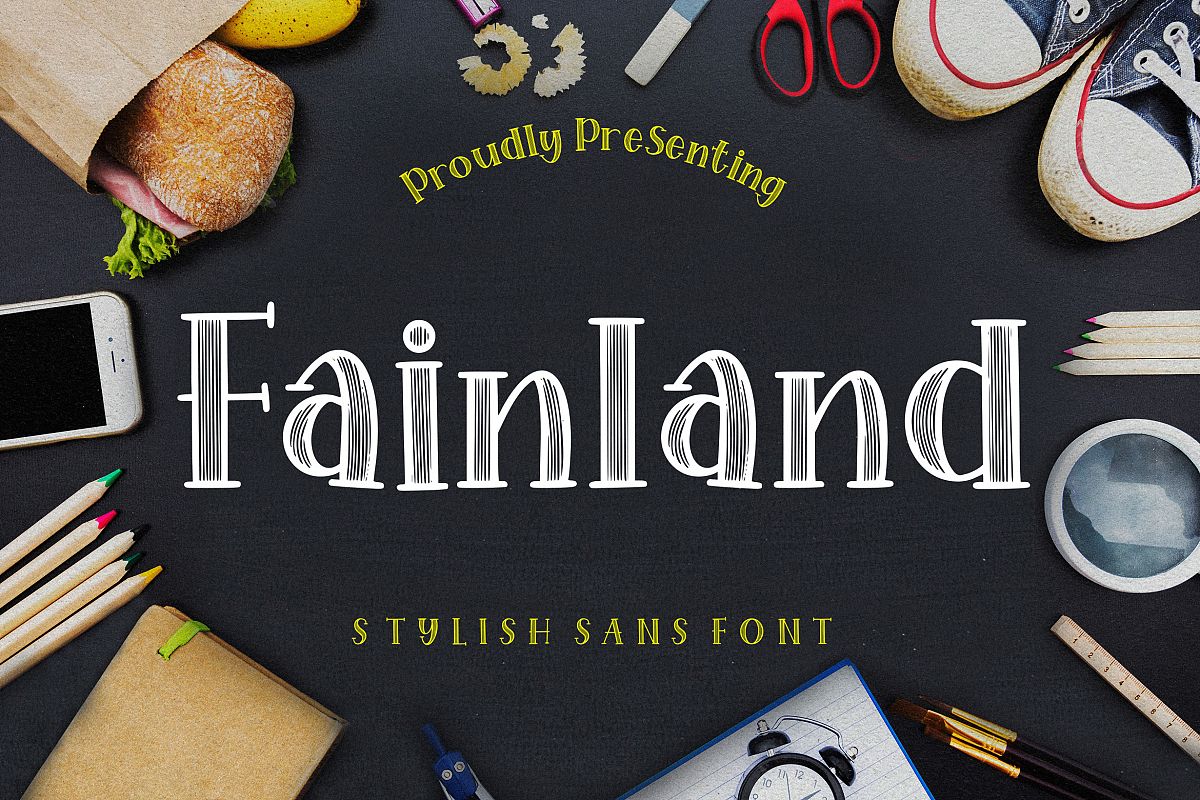
Fainland Stylish Sans
Fainland
Fainland is stylish sans serif font with fun formal and perfect for school events.
Fainland is perfect for branding projects, logo, wedding designs, social media posts, advertisements, product packaging, product designs, label, photography, watermark, invitation, stationery and any projects that need handwriting taste.